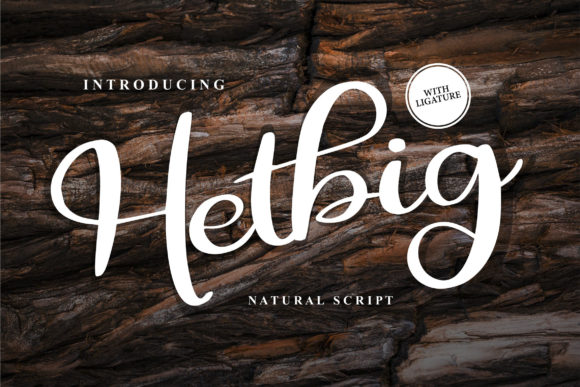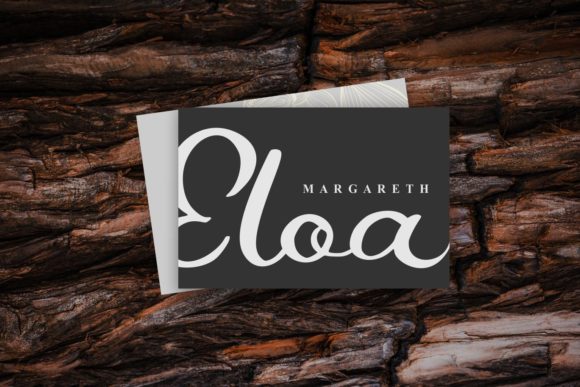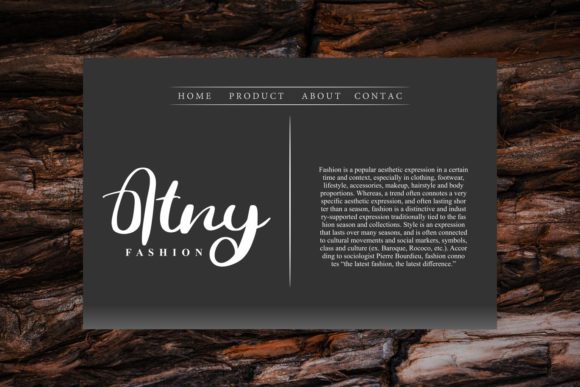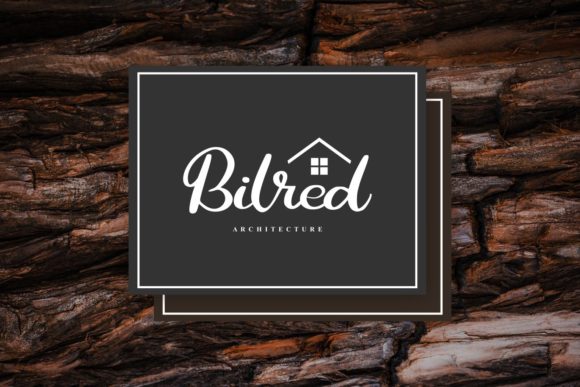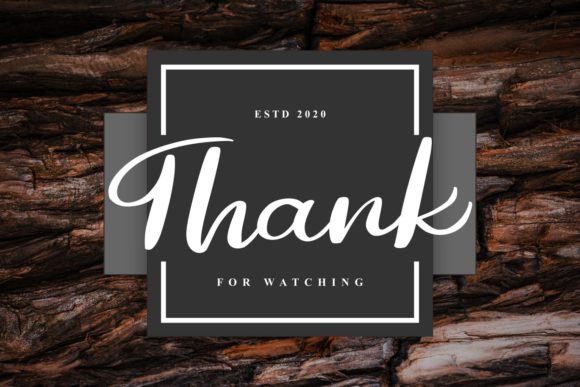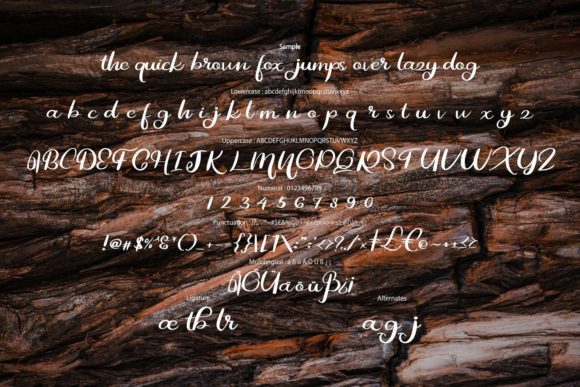
HomeScript FontsHetbig Font Script Fonts Hetbig Font FacebookXPinterestWhatsApp Hetbig Font Poster 2 Hetbig Font Poster 3 Hetbig Font Poster 4 Hetbig Font Poster 5 Hetbig Font Poster 6 About Hetbig Font Hetbig is a gorgeous calligraphy font that’s full of life. It will take any design project to the next level. DOWNLOAD ON CREATIVE FABRICAThis font is sold and delivered by Creative Fabrica. Font Canyon may earn a commission if you buy through this link. People also explored Unrelated Font Mosaic Font Ribbon Monogram Font Filmotype Homer Handmade Crooked Font Wiskey Portlande Font Mahligai Font Taillor Amillate Font Lemon Dreams Font 334 0 TagsHetbig Font Previous articleStreet FontNext articleVery You Font LEAVE A REPLY Cancel reply Comment: Please enter your comment! Name:* Please enter your name here Email:* You have entered an incorrect email address! Please enter your email address here Website: Save my name, email, and website in this browser for the next time I comment. Personal Use Free Bright Dreams Personal Use Free Read more about this font The Bocah Personal Use Free Read more about this font Beat My Guest Personal Use Free Read more about this font Genres Personal Use Free Read more about this font BLOG Modern Sans-Serif Fonts That Brands Love in 2025 In 2025, modern sans-serif fonts remain a top choice for brands looking to project clarity, professionalism, and... How to Install and Use Fonts on Windows, macOS, and Web Projects To increase your work productivity, choose the most readable fonts. Free vs Paid Fonts: Why Investing in Premium Fonts Is Worth It